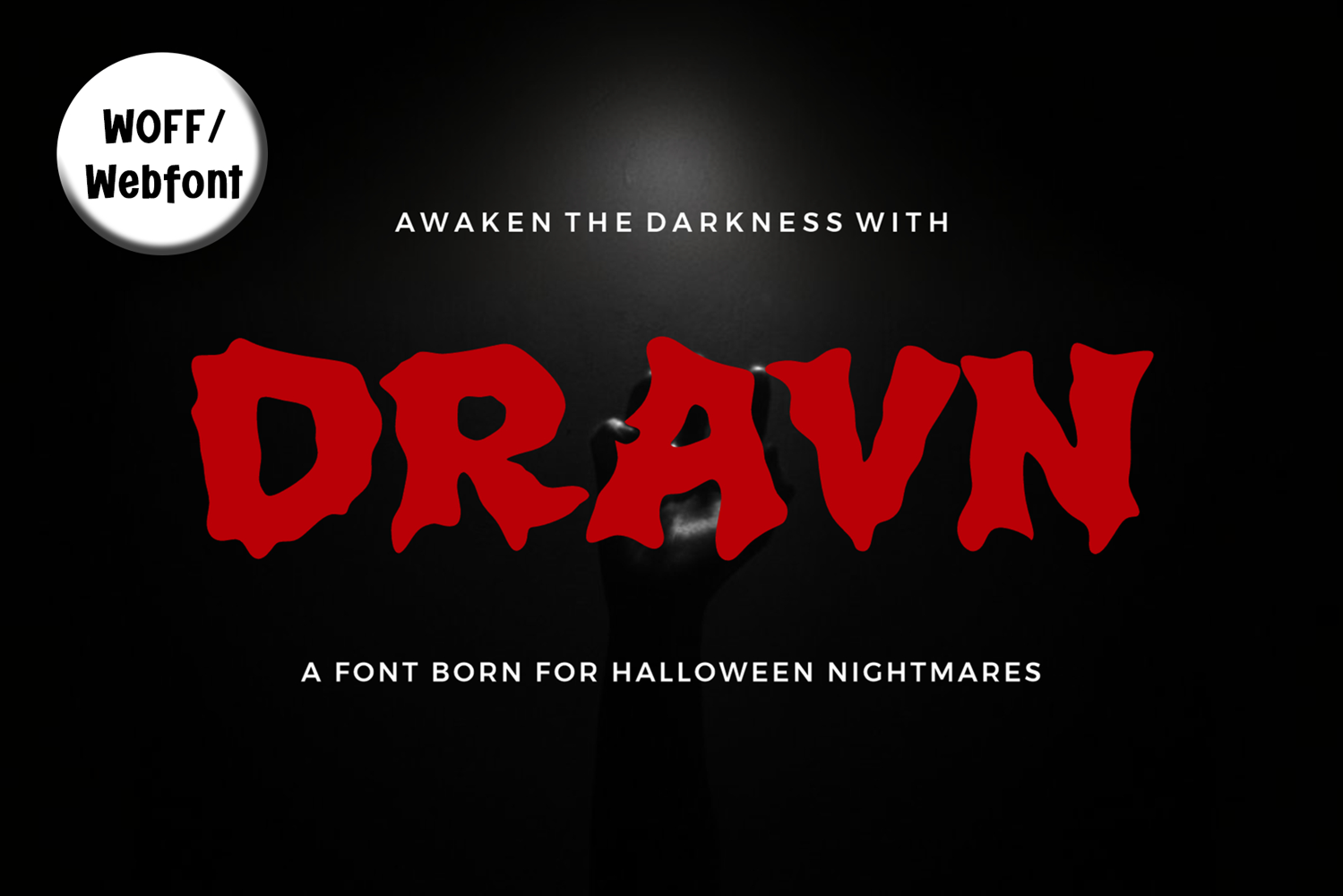
DRAVN | Webfont Creepy Typeface for Halloween Websites
DRAVN Webfont delivers the same spine-tingling horror design to your digital experiences. Its creepy, distorted shapes make it perfect for Halloween-themed websites, digital ads, email headers, interactive games, or online spooky stores. DRAVN is fully optimized for web use and includes multilingual support to reach audiences across the world. The haunting design ensures your site leaves a lasting impression. Provided in WOFF format.